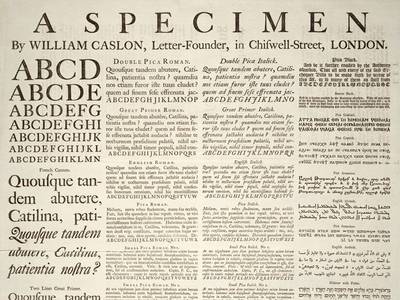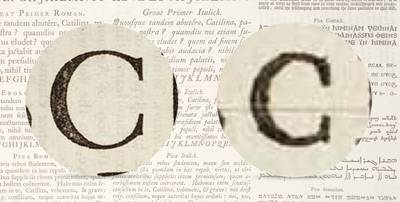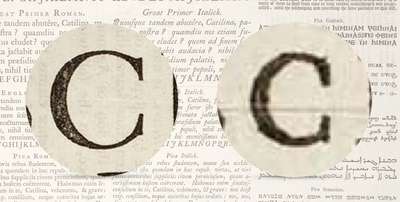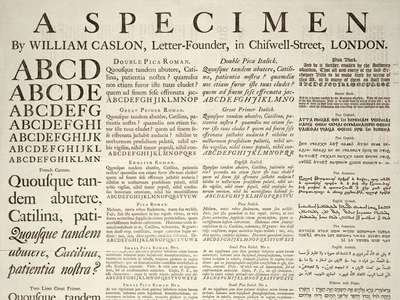
Last week I finally introduced you to variable fonts a bit more formally. I covered four out of the five registered axes and bunch about how to implement them. This week I want to dig into the fifth registered axis, talk a bit about its history, and explore some of the other interesting aspects of the new format.
Broadsheet type sampple of Caslon from 1720
A broadsheet specimen printed by William Caslon in 1720, showing the physical differences between sizes of metal type
Optical size
For many of us, the only sort of type we know is digital. And digital type has generally worked the same way for a long time. There is a single outline for every glyph, and changing the font size simply scales that glyph to the desired proportion. But if the typeface has particularly high contrast between thick and thin strokes, simply scaling the outline uniformly can lead to some unpredictable results. Very thin stroke weights can become so fine at small sizes as to fall apart or effectively disappear. Conversely if the design has been optimized for smaller physical sizes, it can look ungainly when used at larger sizes. But this was not always how things were done.
Going back hundreds of years, there has been a practice in the type design industry of crafting slightly different version (of ‘cuts’ of a typeface with subtly altered stroke weights: making them slightly thicker at physically smaller sizes to avoid breakage of the forms. At larger sizes the thinner strokes could maintain a more refined proportion, preserving the original detail and design intent. The examples below are details from the broadsheet shown above, printed by William Caslon in 1720 to demonstrate one of his early typeface designs. The upper-case letter C, shown at a normalized size, set at both 6pt and 72pt shows this technique quite clearly.
Two capital C letters cast in different sizes, showcasing the differences between stroke contrast
72pt and 6pt capital C showing difference in stroke contrast
But by the 1960s, as phototypesetting and then digital type became the norm, this practice was largely lost. When converting the type to the new format, in most cases a single outline was chosen which was then scaled uniformly. While modern paper and printing has improved dramatically, there is still an unmistakable difference in legibility and refinement when you see it side-by-side. Occasionally you see digital typefaces sold in different optical size ranges (optimized for small body copy versus large display use), but it’s pretty uncommon.
With the advent of variable fonts we can revive the practice in a much more practical way. Rather than having to create, sell, and load separate font files, we can load that same single variable font file, and have the browser set the optical size for us. Intended to be applied automatically, we also can control the optical size setting explicitly should the need arise.
The intent is that the optical size axis values correspond with the size at which the font is set. So an optical size range of 12 to 72 when used on the web should correspond to an equivalent pixel value (or points in print applications). Browsers are supposed to be able to set this automatically, but as of this writing Chrome still doesn’t support the property so you have to set it manually to get more universal results.
Ideally according to the spec you should be able to set this (or even have the browser just do this by default):
To ensure it works in all browsers supporting variable fonts, you need to use this for now. Note that the value supplied should be an integer corresponding to equivalent pixel size of the font.
I’ve set up a couple of examples looking at Amstelvar (a serif typeface where it makes a huge difference), and Roboto Delta (a sans-serif where it’s quite a bit more subtle). I make use of optical sizing on my own site with the variable version of Roslindale and the impact between text and headings is (I think) pretty stunning.
Two sentences showcasing the extremes of optical sized stroke contrast
Example of optical sizing: top, with correct optical size showing fine details; and bottom, with the optical sizing forced to a lower value showing the reduced contrast and thicker forms that will help maintain readability at physically smaller sizes
Custom axes
One of the main goals of the variable font format was extensibility: it’s simply impossible to know exactly how type designers will want to vary their typefaces in the future. And that’s really the point: evolution and exploration are already yielding some fascinating and fantastic results. One that I quite like is the ability to alter the height or depth of ascenders or descenders. This can have enormous impact on the overall tone of a typeface, but can also impact how we typeset with it. I love really tightly set headlines, and with the ability to tuck the ascenders and descenders in just a little bit we can tailor the typography quite a bit and avoid unsightly collisions from one line to the next.
A heading set on three lines showing colliisons between ascenders and descenders
Headline with collision between ascenders and descenders
A heading set on three lines showing no colliisons between shortened ascenders and descenders
Headline with no collision between shortened ascenders and descenders